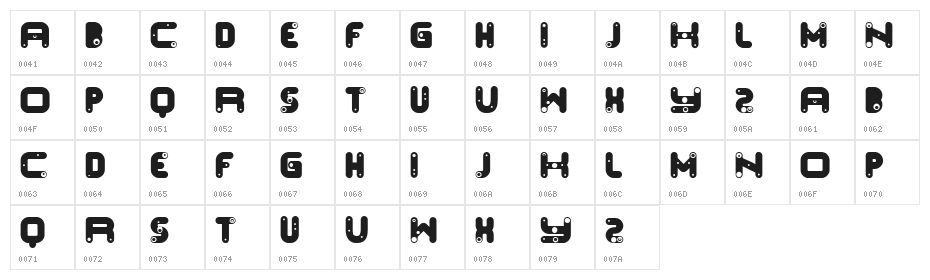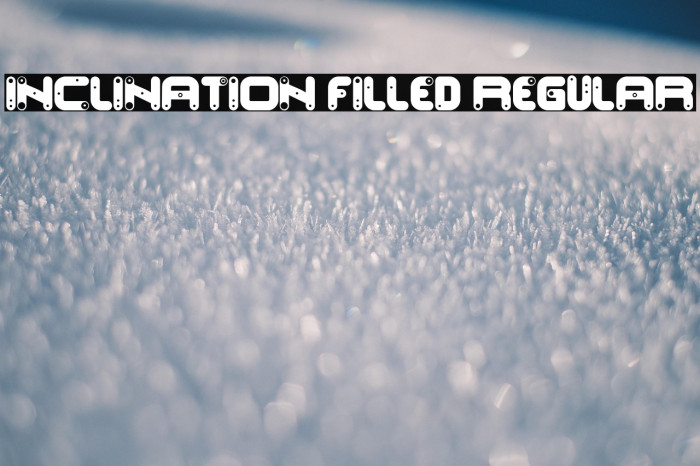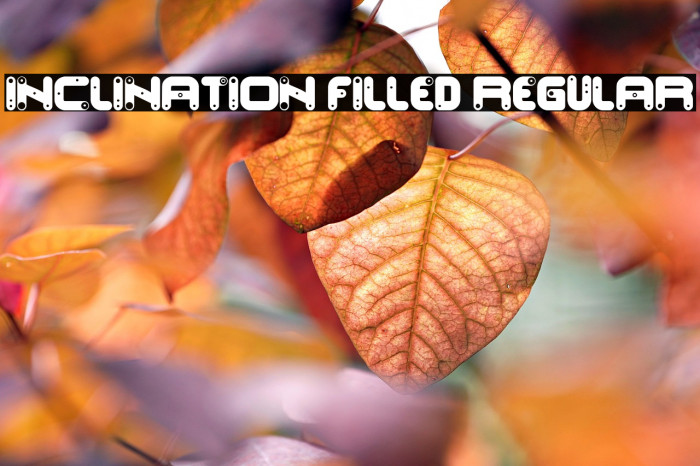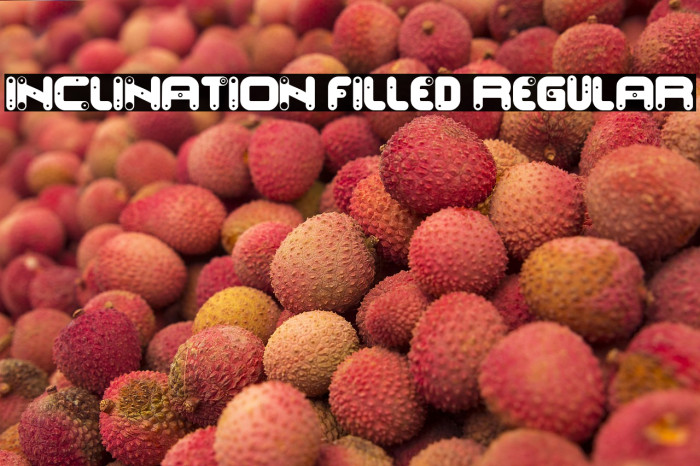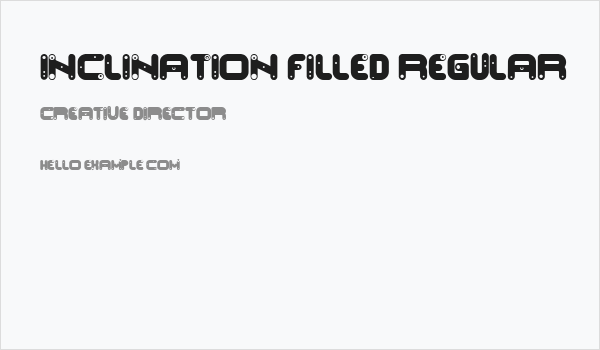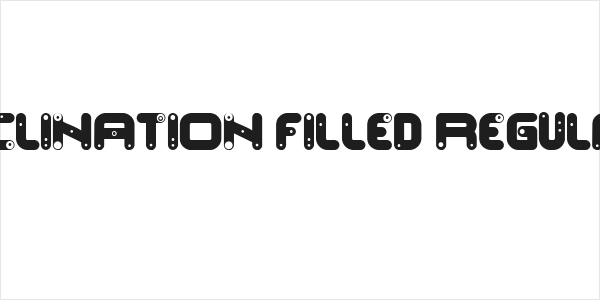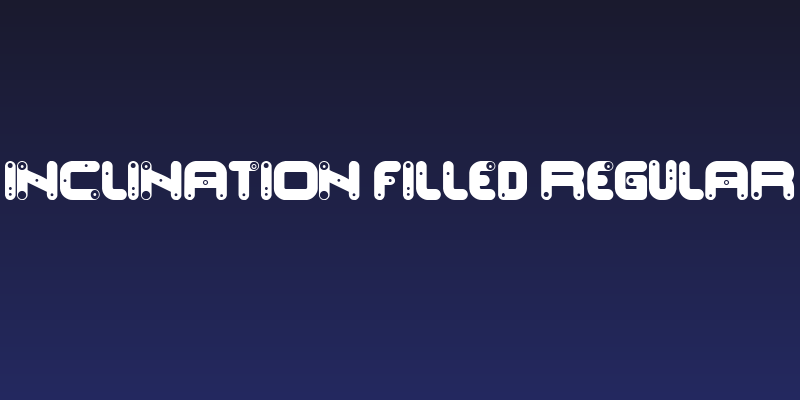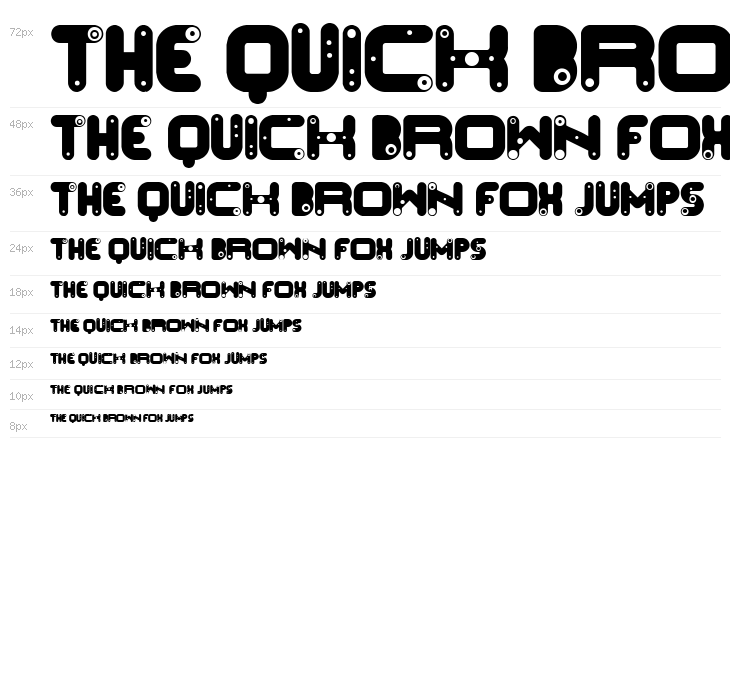
Inclination Filled Regular Font
This font features a unique and bold design with a mechanical and industrial aesthetic. Each character is constructed with a series of rounded, interconnected segments, giving it a distinct, futuristic look. The filled style enhances its solid appearance, making it stand out in any design. The font's geometric shapes and consistent line thickness contribute to its modern and structured feel. The inclusion of small circular details within the letters adds an extra layer of complexity and interest, making it suitable for projects that require a strong visual impact.
| Use Case | Logos, Headlines, Posters |
| Proposed Projects | Ideal for technology-themed designs, branding for industrial products, or futuristic posters. |